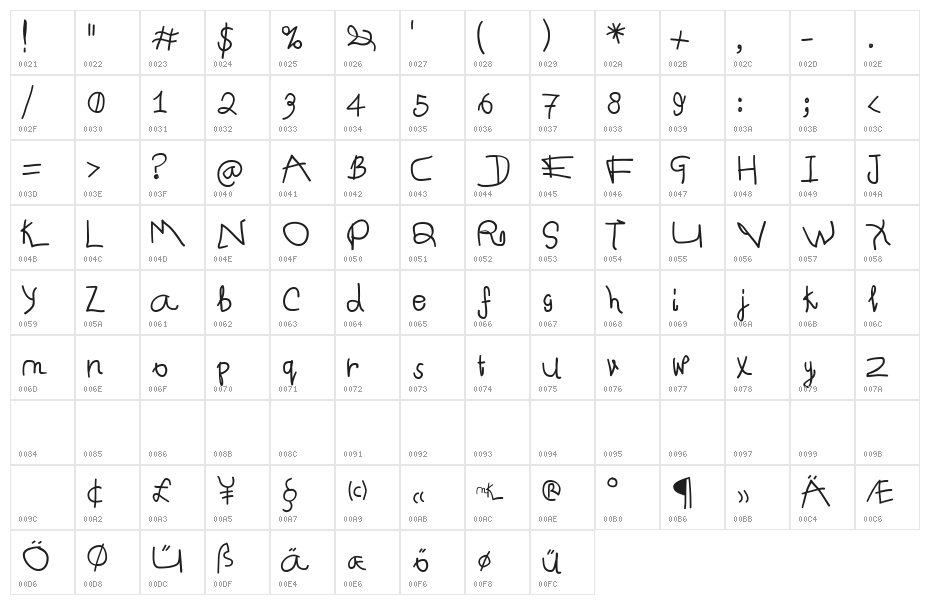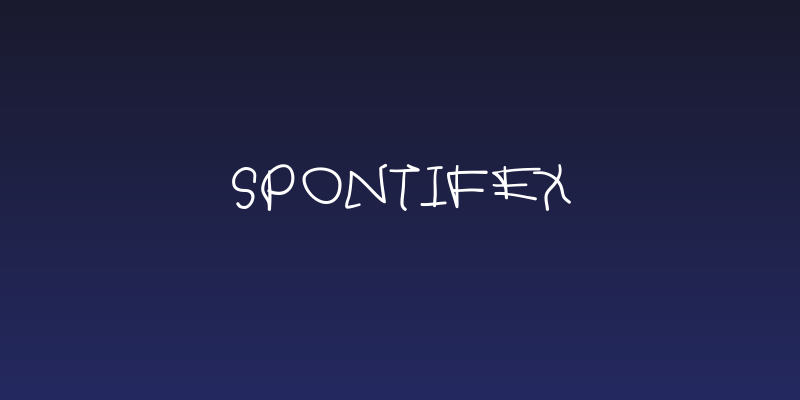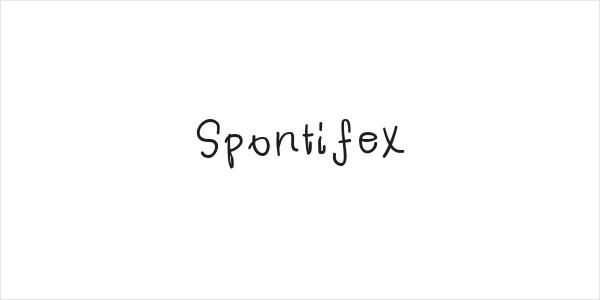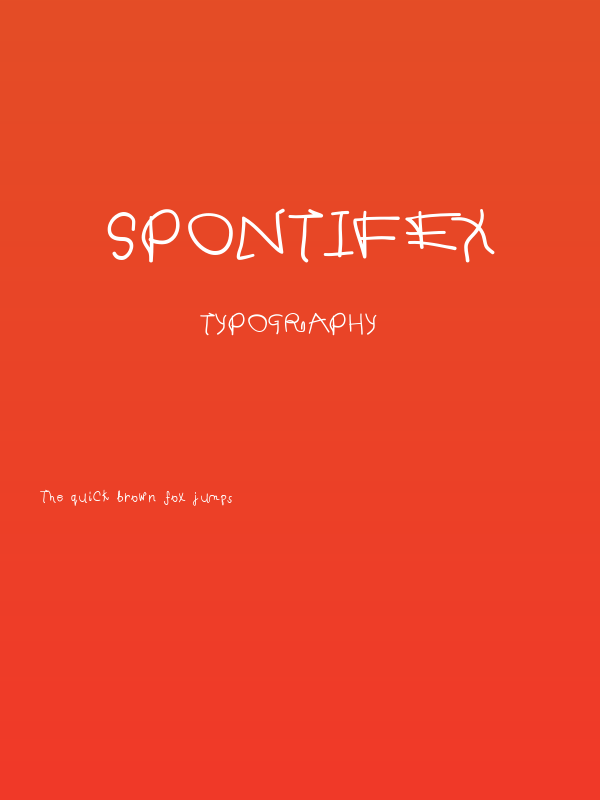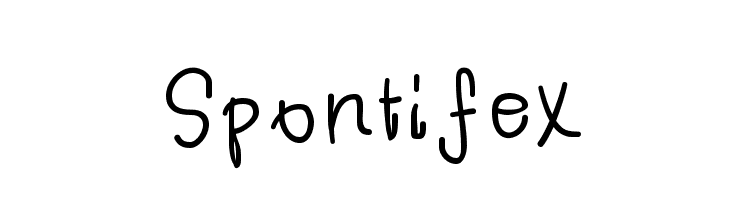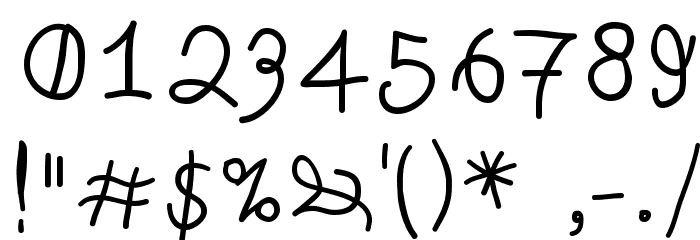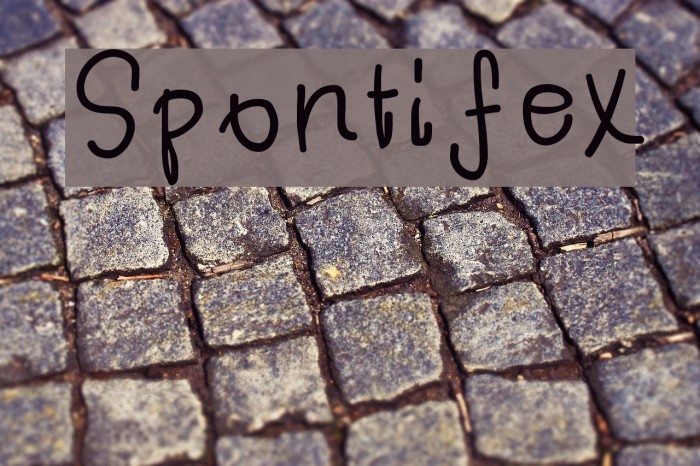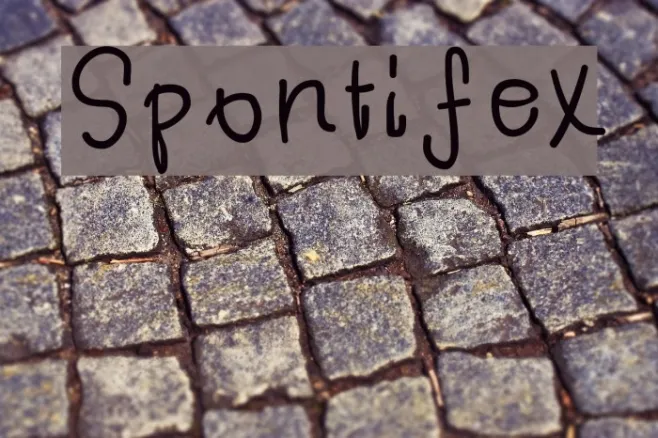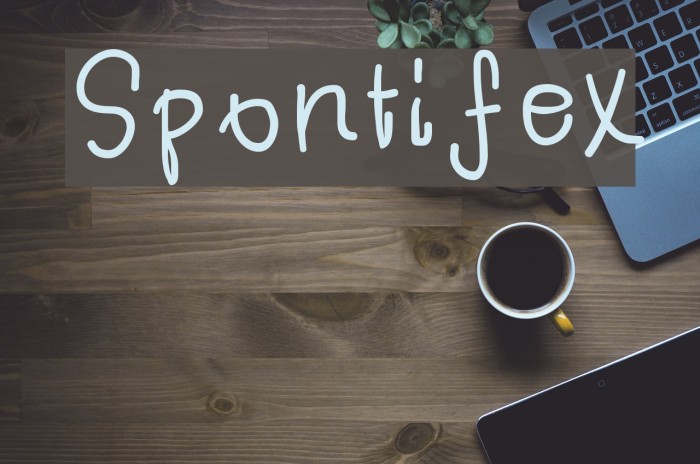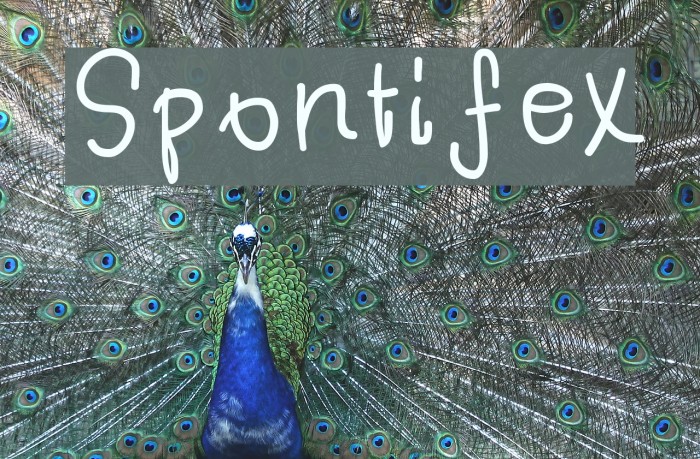
Spontifex Font
Spontifex Description
This font exhibits a playful and whimsical style, characterized by its irregular and hand-drawn appearance. The letters are unevenly sized and spaced, giving it a casual, informal look. The uppercase letters have a quirky, almost childlike quality, with some strokes extending beyond the typical boundaries. The lowercase letters maintain a similar playful tone, with loops and curves that add to the font's charm. Numbers and special characters follow the same design principles, ensuring a cohesive appearance across all glyphs. This font's unique style makes it stand out, offering a creative and artistic touch to any project.
| Proposed Projects | Ideal for children's books, creative posters, playful branding, and artistic projects. |